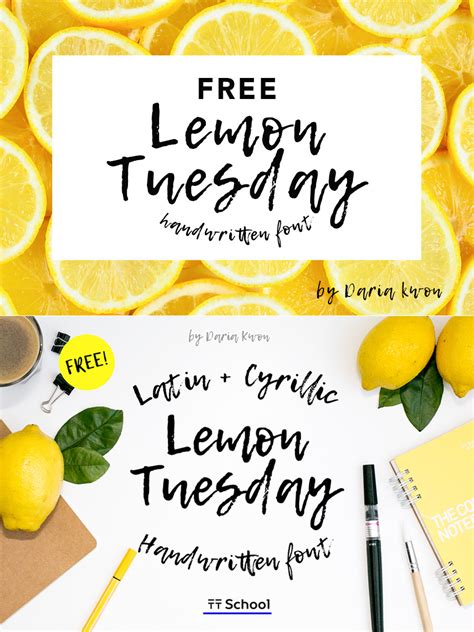
Lemon Tuesday Font. The lemon tuesday font has been downloaded 17,249 times. Lemon tuesday is a script type font that can be used on any device such as pc, mac,.
Lemon tuesday is a script type font that can be used on any device such as pc, mac,. Web download the lemon tuesday font by jovanny lemonad. Download free for commercial use. The lemon tuesday font has been downloaded 17,249 times. Web lemon tuesday is a free font for commercial use created by daria kwon. New fonts | top fonts | submit a font | font. Web 1,483,352 downloads (227 yesterday) 48 comments public domain / gpl / ofl download donate to author lemon tuesday.otf note of the author authors:.